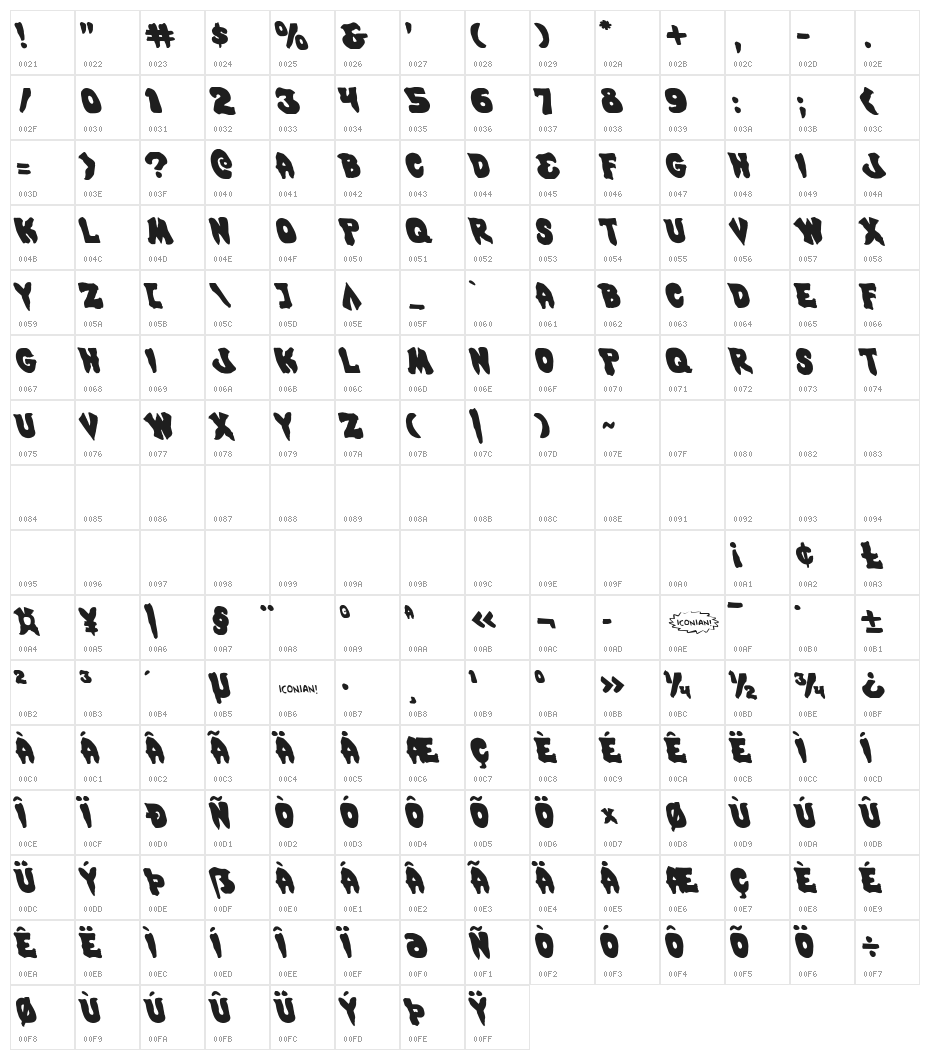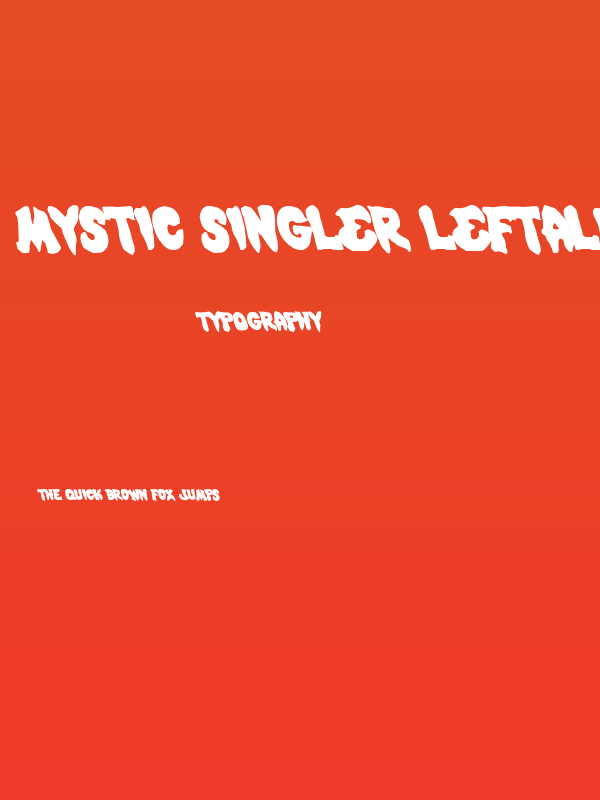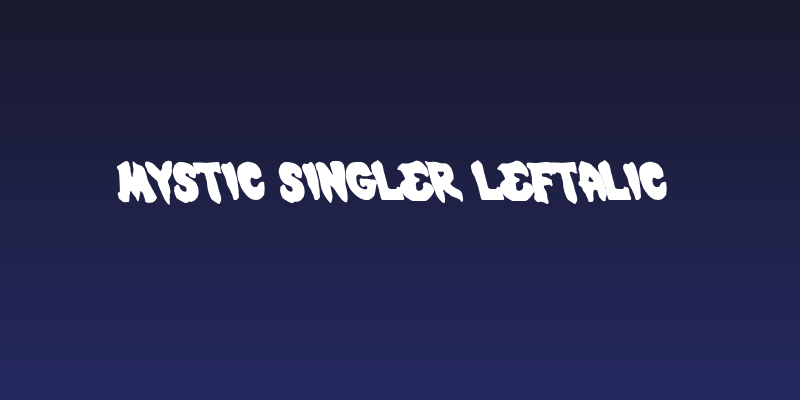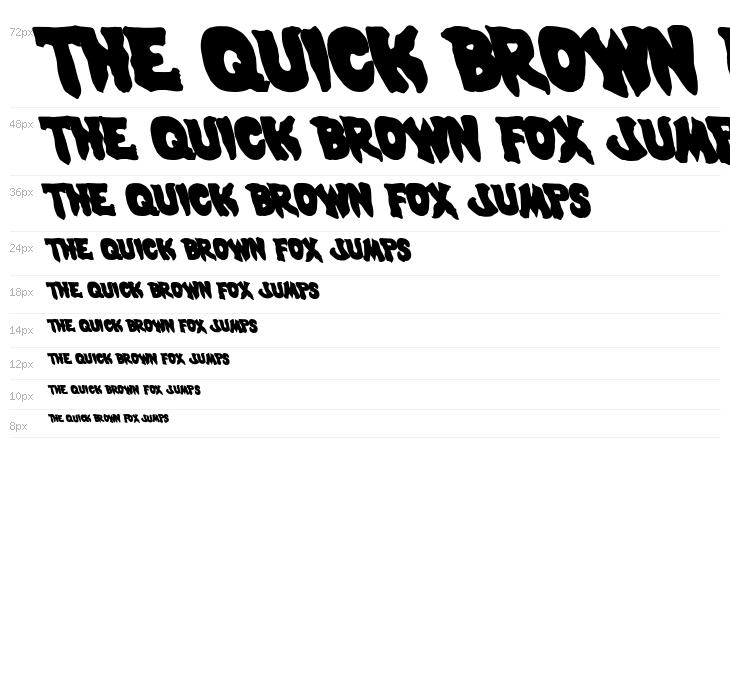
Mystic Singler Leftalic Font
Mystic Singler Leftalic Description
This font features a bold and dynamic style with a strong, expressive character. The letters are heavily stylized with a playful, almost cartoonish flair, making them stand out with their thick strokes and irregular shapes. The design is reminiscent of graffiti or street art, with a sense of movement and energy. The uppercase and lowercase letters maintain a consistent weight, and the numbers and special characters follow the same bold and lively aesthetic. This font is ideal for projects that require a touch of creativity and boldness.